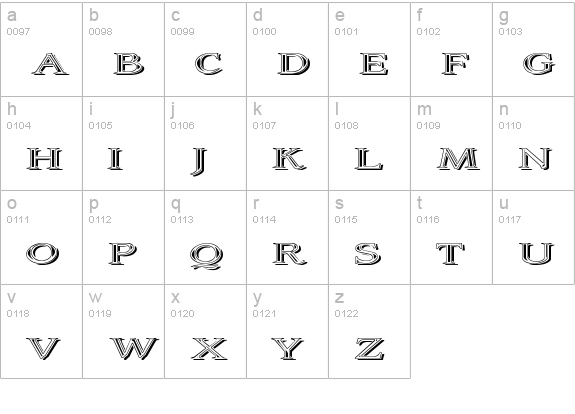
Coltaine No 2 Font Details
Coltaine No 2 is a stunning and versatile font that will elevate any design project to the next level. Its elegant and modern aesthetic makes it perfect for a wide range of applications, from branding to editorial design. The sleek lines and balanced proportions of Coltaine No 2 give it a timeless appeal that is sure to captivate audiences. This font is not only visually appealing but also highly functional, with excellent readability in both print and digital formats. Whether you're creating a logo, poster, website, or any other design project, Coltaine No 2 is sure to make a lasting impression. Best of all, Coltaine No 2 is available for free download at FontsMarket.com. This means you can easily access this premium font without breaking the bank. Don't miss out on the opportunity to enhance your designs with the beauty and sophistication of Coltaine No 2. Download it today and take your projects to new heights.